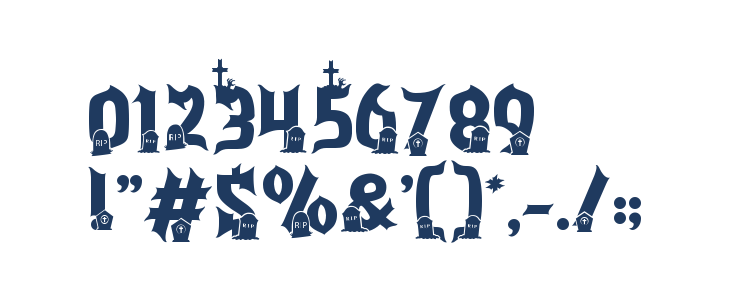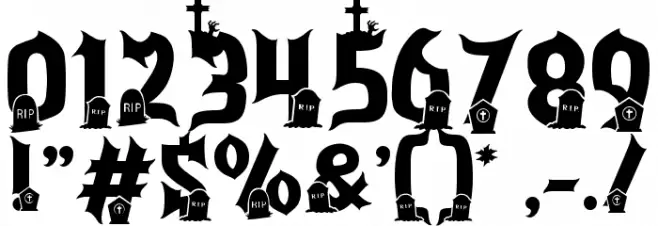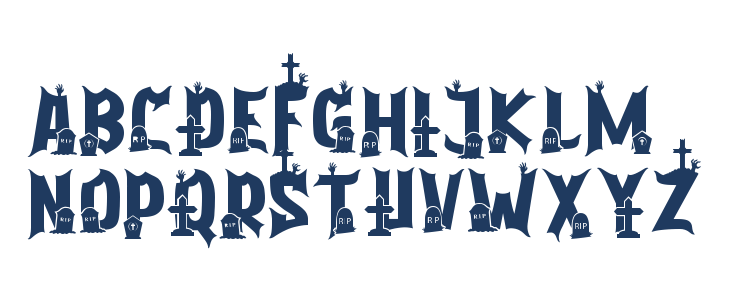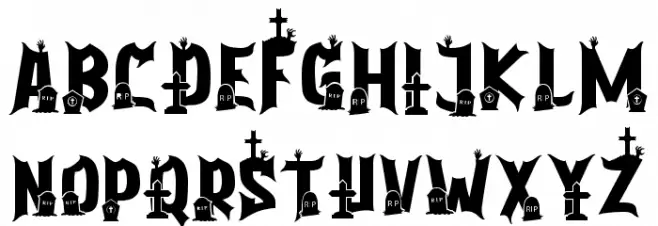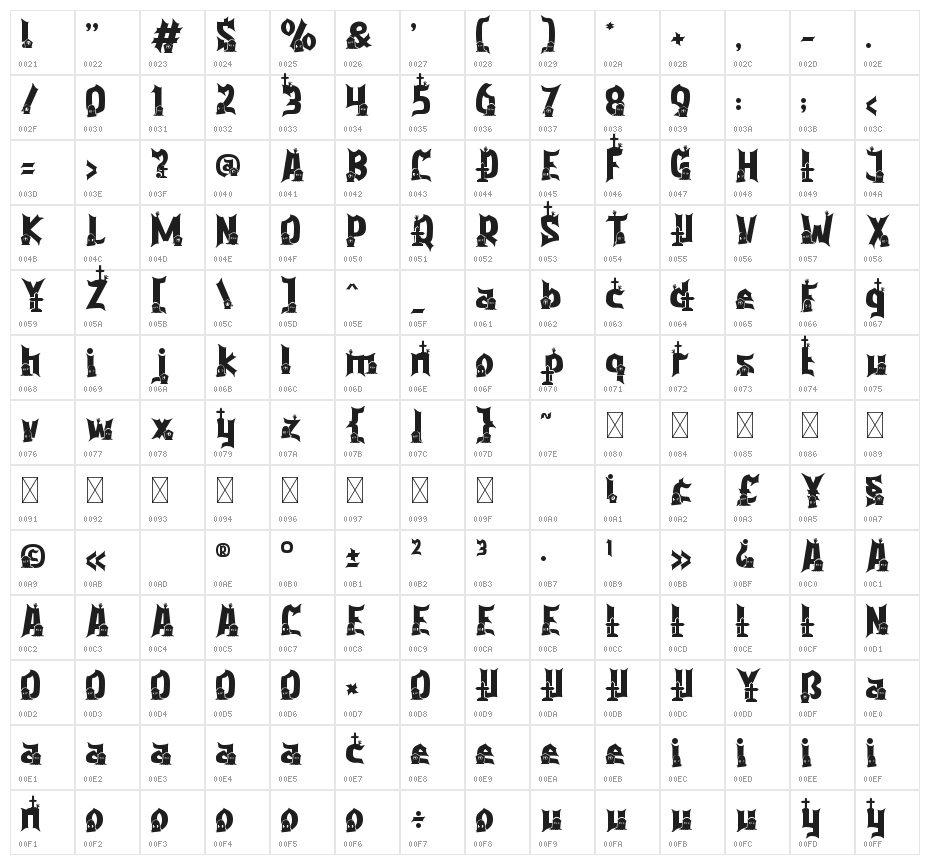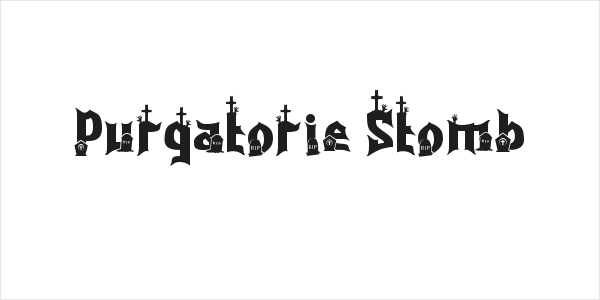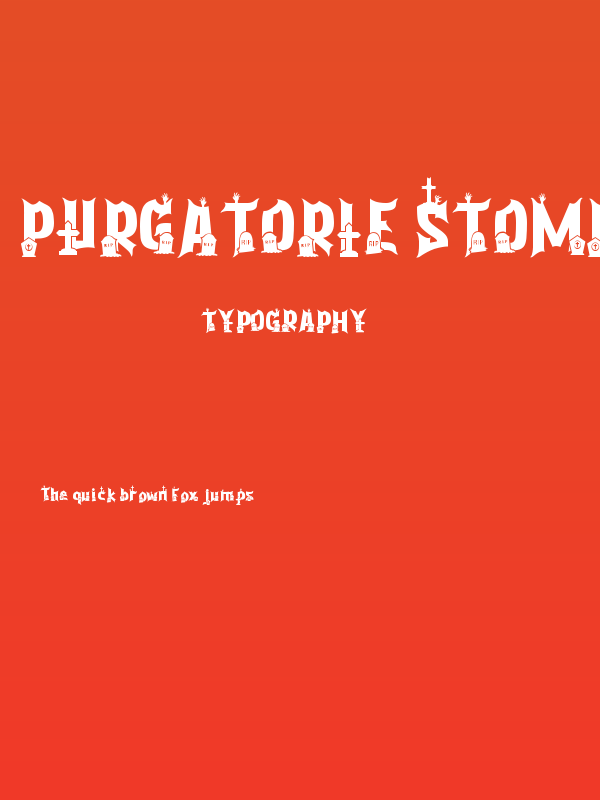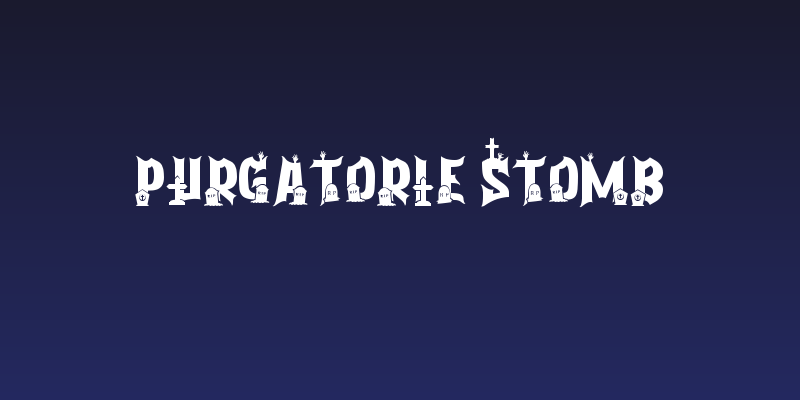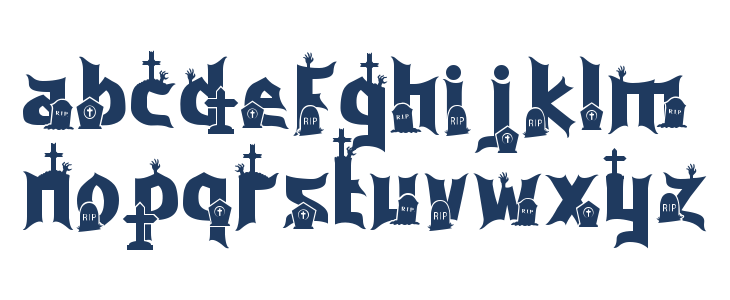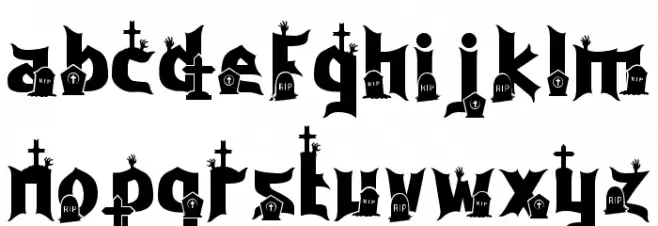
Purgatorie Stomb Font
A highly decorative display font featuring graveyard motifs such as tombstones, crosses, and zombie hands integrated into each character, evoking a spooky, Halloween-inspired atmosphere.
| Overall Style | Decorative, Horror, Thematic |
| Use Case | Headlines, Posters, Event Branding, Logos |
| Proposed Projects | Halloween posters, haunted house flyers, horror movie titles, themed party invitations, spooky event branding. |